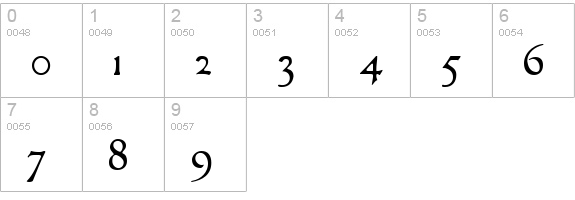
GranthamLight font is a modern and elegant typeface that exudes sophistication and style. With its clean lines and sleek design, this font is perfect for a wide range of design projects, from branding to editorial design. Its light weight adds a touch of delicacy and refinement to any text. What's even better is that GranthamLight font is completely free to download at FontsMarket.com. This means you can easily access this beautiful font and use it in your projects without any cost. So why wait? Add GranthamLight font to your collection today and elevate your designs with its timeless appeal.